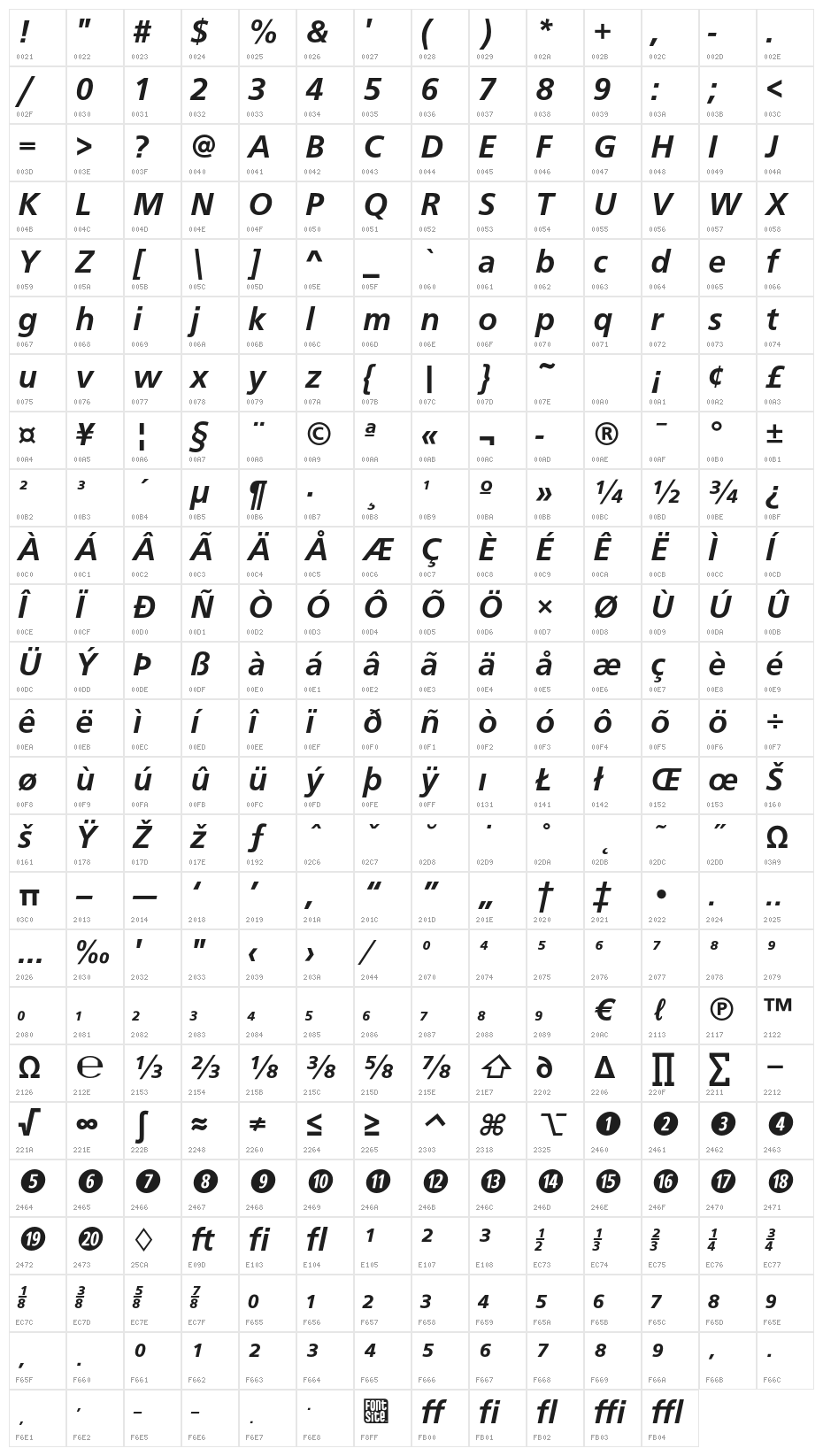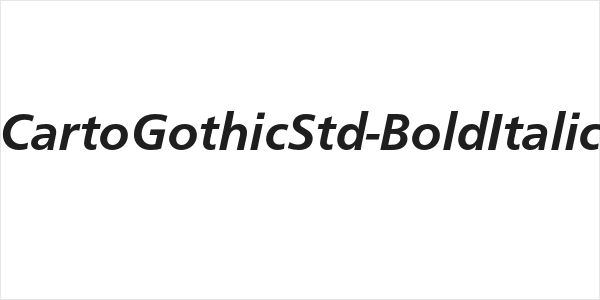
CartoGothicStd-BoldItalic Font
CartoGothicStd-BoldItalic Description
This font features a bold and italicized style that combines modern aesthetics with a clean, sans-serif structure. The characters are slightly slanted, adding a dynamic and forward-moving appearance. The strokes are consistent and smooth, providing a uniform look across all characters. The uppercase letters are well-proportioned, while the lowercase letters maintain a balanced and approachable feel. Numerals are clear and distinct, ensuring readability. Special characters are designed to complement the overall style, making this font versatile for various applications.